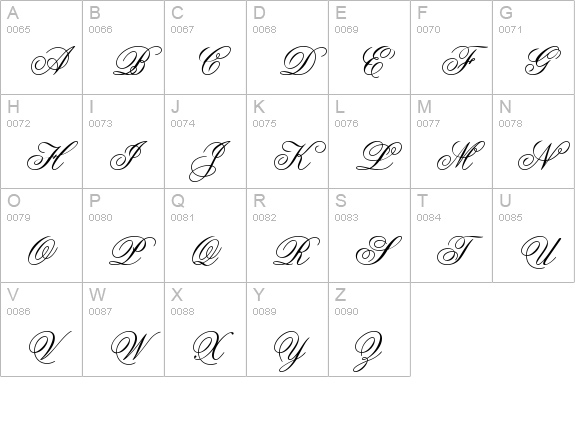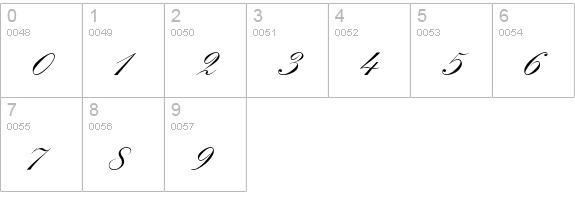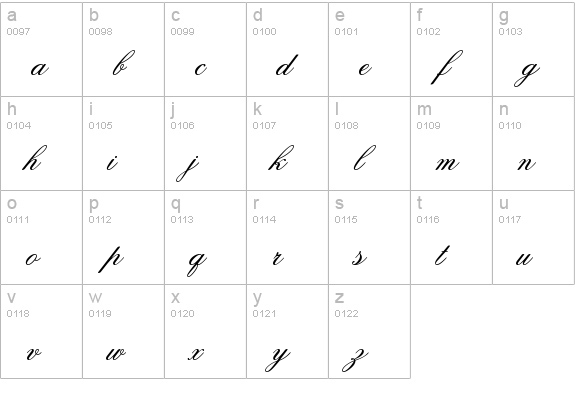
Old Script Font Details
The Old Script font is a beautifully crafted typeface that exudes elegance and sophistication. Its intricate details and vintage charm make it perfect for adding a touch of nostalgia to any project. With its classic and timeless appeal, this font is sure to elevate your designs to new heights. Best of all, the Old Script font is available for free download at FontsMarket.com. You can easily access this stunning typeface and start using it in your creative endeavors without any cost. Don't miss out on the opportunity to enhance your designs with this exquisite font that captures the essence of bygone eras. Download the Old Script font today and let its timeless beauty inspire your work.